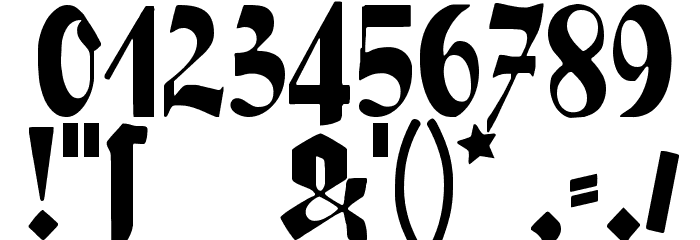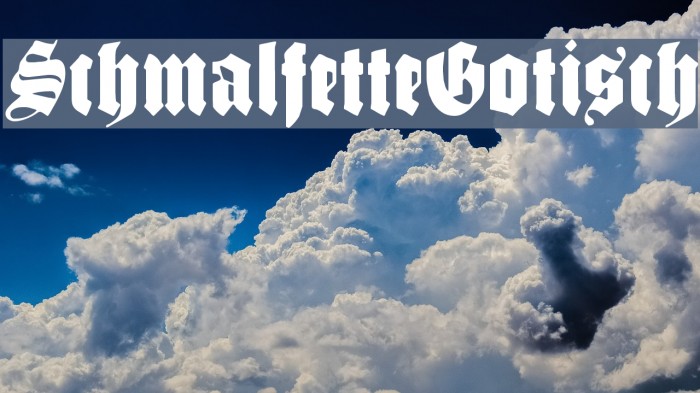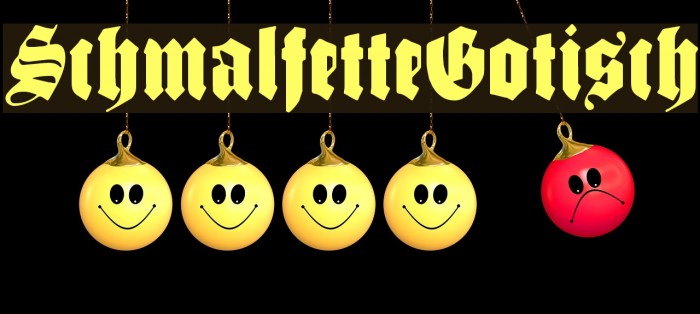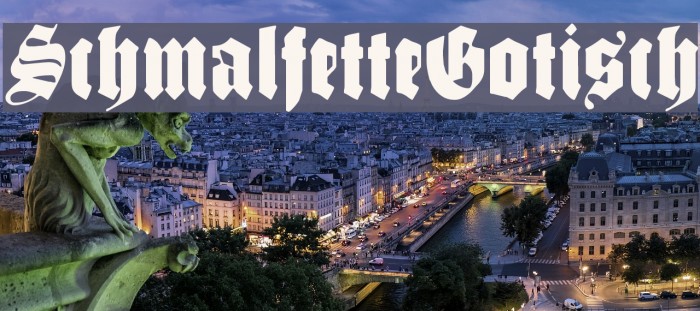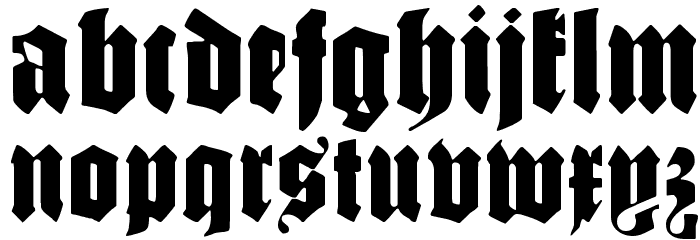
SchmalfetteGotisch Font
This font exhibits a bold and dramatic style, characterized by its intricate and ornate letterforms typical of Blackletter typefaces. The uppercase letters are particularly elaborate, featuring sharp angles and decorative serifs that give a sense of historical gravitas. The lowercase letters maintain the same level of detail, with a consistent stroke weight that emphasizes the font's boldness. The numerals are equally stylized, fitting seamlessly with the overall aesthetic. Special characters are designed with the same attention to detail, ensuring a cohesive look across all glyphs. This font's strong visual presence makes it ideal for projects that require a touch of medieval or gothic flair.
A bold, ornate Blackletter font with intricate details and a dramatic style.
• Proposed Projects: Ideal for historical themed designs, gothic posters, book covers, or branding that requires a medieval touch.
• Category: Blackletter
• Overall Style: Vintage
• Use Case: Headlines, Logos, Decorative text